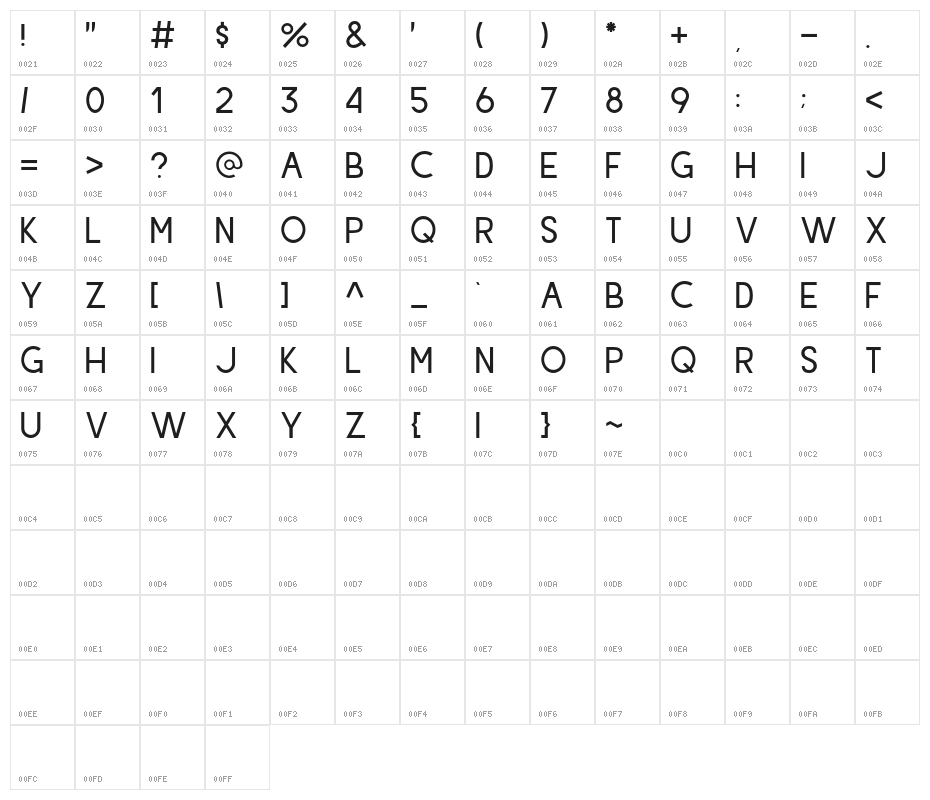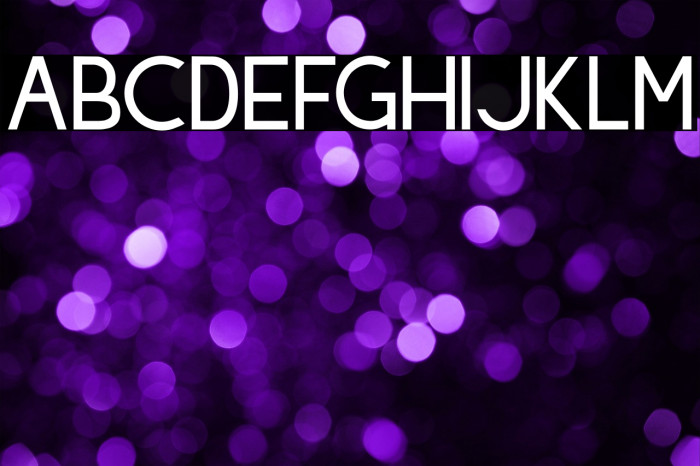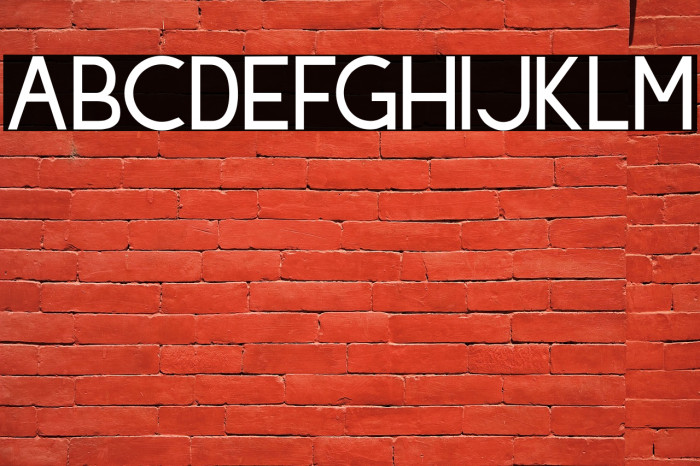
Hiyotori Font
Hiyotori Description
This font features a clean and modern sans-serif design, characterized by its geometric shapes and uniform stroke width. The letters are well-proportioned, with a consistent height and width that contribute to its readability. The uppercase and lowercase letters maintain a harmonious balance, while the numerals and special characters are designed to complement the overall style. The simplicity and clarity of the characters make it suitable for a wide range of applications, from digital interfaces to print media. Its versatility is enhanced by the absence of serifs, allowing for a sleek and contemporary appearance.
Proposed ProjectsIdeal for branding, web design, advertising, and editorial layouts due to its clean and modern appearance.